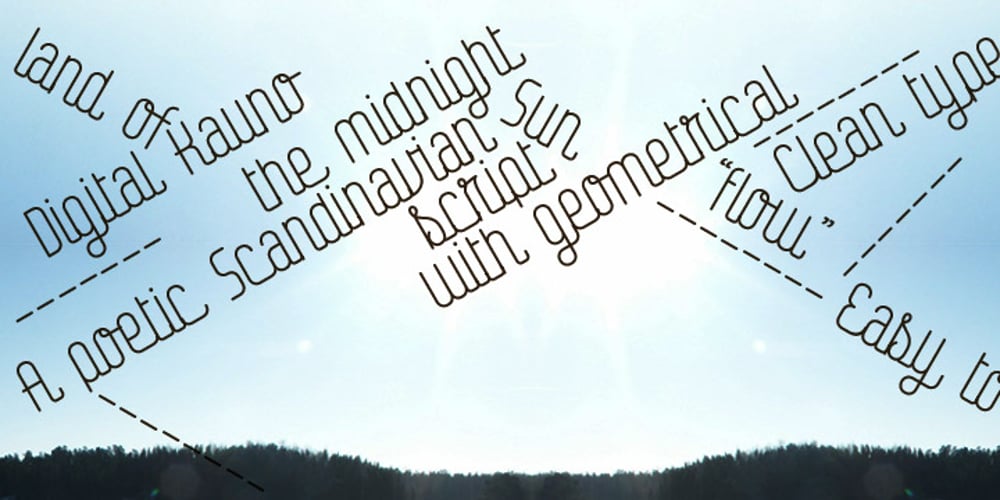
FT Digital Kauno Font Family was designed by Emil Karl Bertell and published by Fenotype. FT Digital Kauno contains 1 styles and family package options. Digital Kauno is a soft geometric script type. It is recommended for headlines and display use. Digital Kauno was originally designed in 2002 and it has now been redesigned with full character set and more distinctive letters.